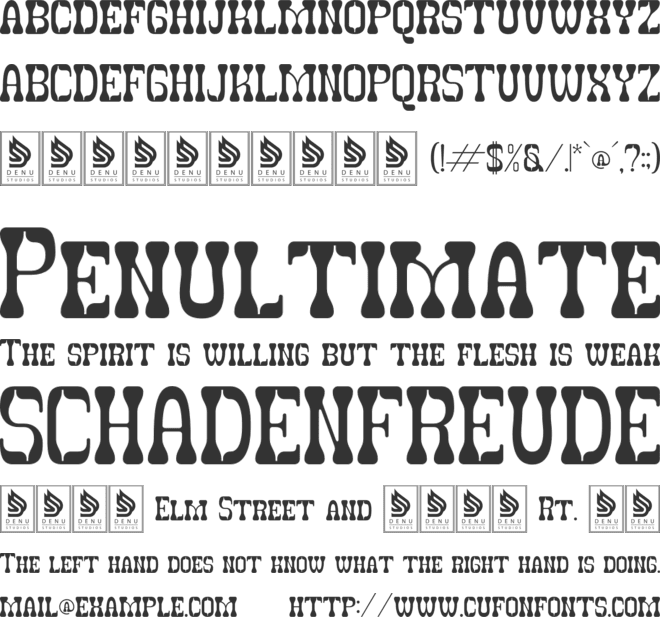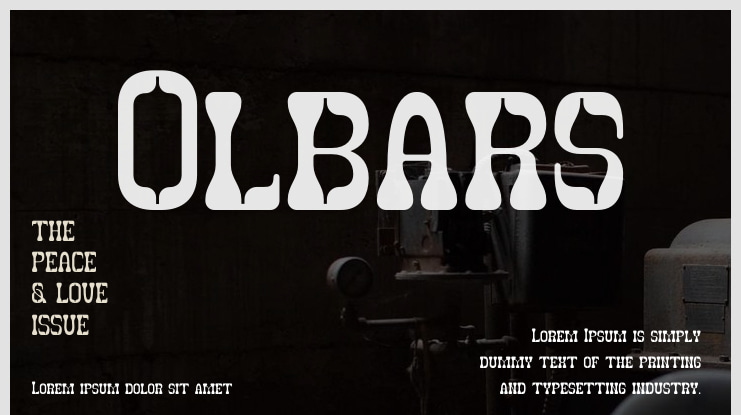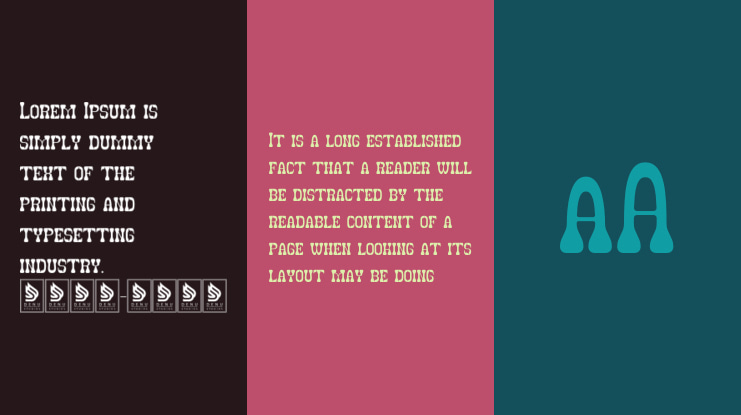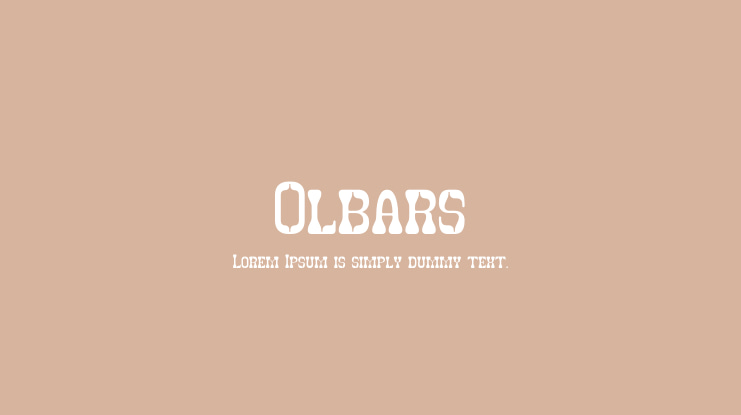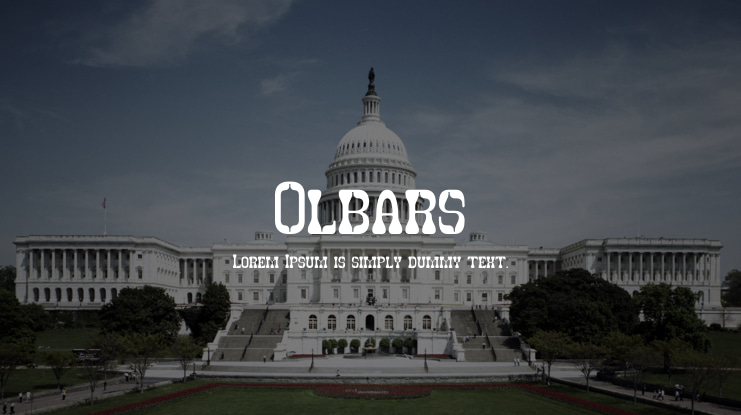
Olbars Font
Olbars | Western Font is perfect for a variety of projects, including logos, branding, homeware designs, product packaging, mugs, quotes, posters, shopping bags, t-shirts, book covers, name cards, invitation cards, greeting cards, labels, photography, watermarks, special events, and any other creative endeavors that require a Western Font touch.